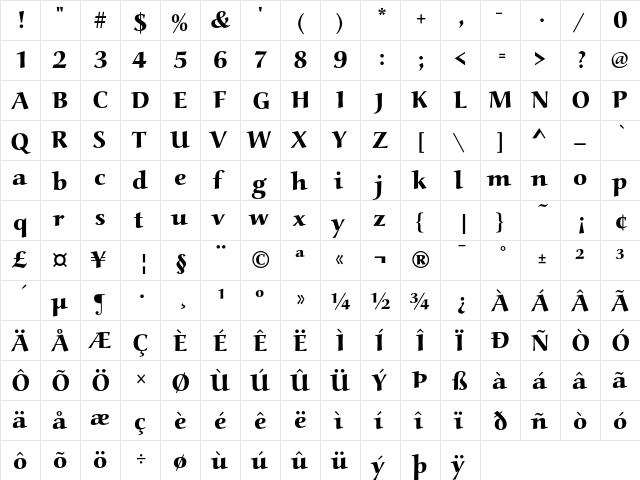
AlcuinEF ExtraBold
Design Context for AlcuinEF Typeface
AlcuinEF offers clean, dependable letterforms without strong stylistic allegiance, making it a practical choice for designers who need flexibility. The heavy weight commands attention and anchors typographic hierarchies.